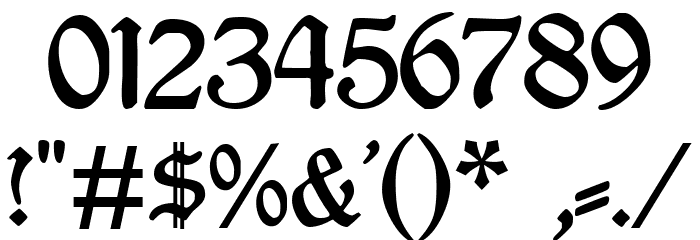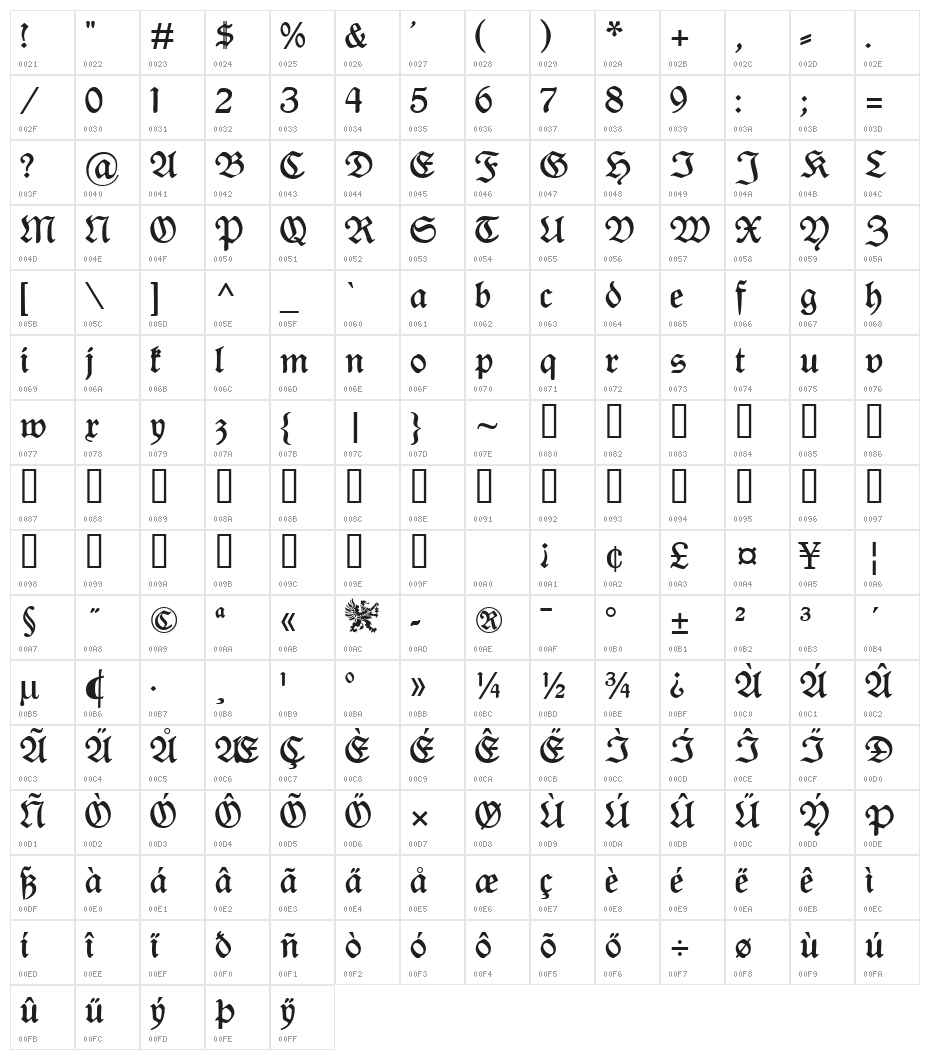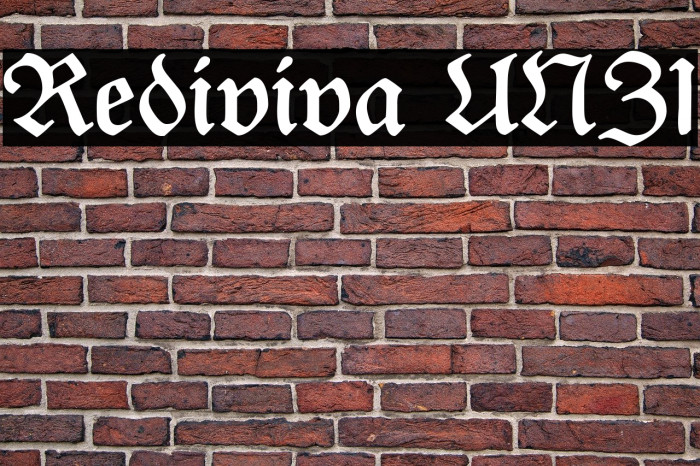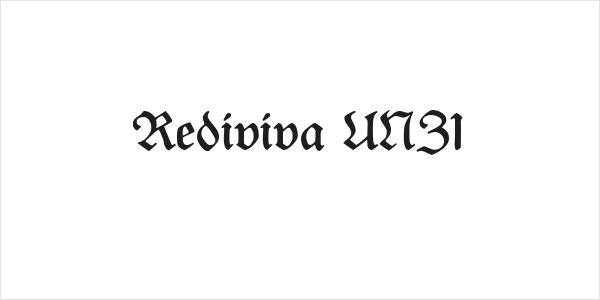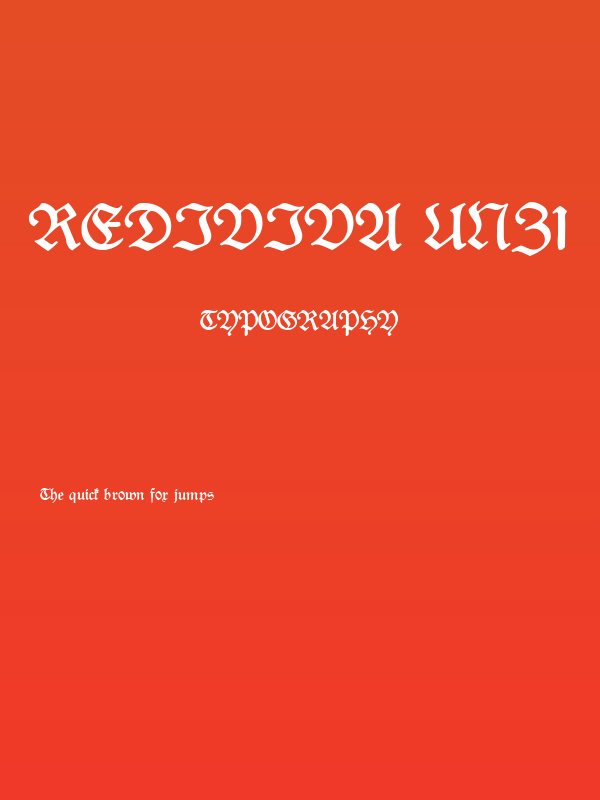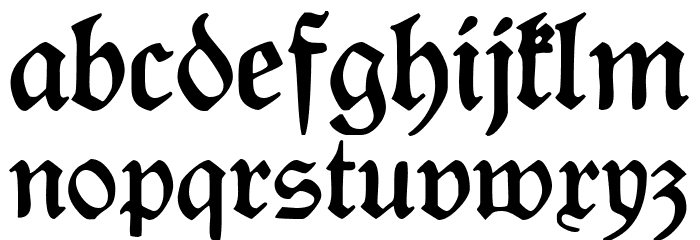
Rediviva UNZ1 Font
Rediviva UNZ1 Description
This font exhibits a classic blackletter style, characterized by its intricate and ornate letterforms. The uppercase letters feature sharp, angular lines with dramatic flourishes, while the lowercase letters maintain a consistent, bold appearance with a slightly condensed form. The numerals are distinct, with a traditional medieval aesthetic that complements the overall design. Special characters are crafted with the same attention to detail, enhancing the font's decorative appeal. The font's bold strokes and high contrast between thick and thin lines contribute to its striking visual impact, making it ideal for projects that require a historical or gothic touch.